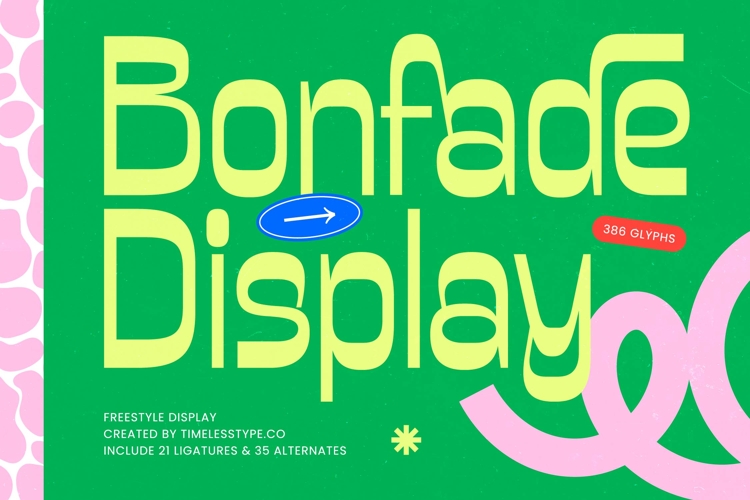
Bonfade Display - Freestyle Sans Display
Unleash unparalleled creativity with Bonfade Display - Freestyle Sans Display, a truly distinctive typeface designed to make an unforgettable statement. This freestyle sans display font captivates with its organic, flowing curves and bold presence, creating an aesthetic that is both modern and timeless. Perfect for projects demanding a fresh, expressive voice, Bonfade Display - Freestyle Sans Display instantly elevates any design, ensuring your message stands out with undeniable impact.
Dive into a world of typographic versatility with the extensive character set of Bonfade Display - Freestyle Sans Display. Featuring 386 glyphs, including 21 ligatures and 35 alternates, this font empowers designers with unlimited customization. Craft unique headlines and branding elements that resonate with sophisticated charm, allowing for dynamic visual narratives that are anything but ordinary.
With its extensive multilingual support, Bonfade Display - Freestyle Sans Display adapts seamlessly across global markets, making it incredibly versatile for international projects. This robust feature ensures your brand maintains its distinctive appeal and readability, regardless of language or region. Experience global readiness and professional consistency, solidifying Bonfade Display - Freestyle Sans Display as a go-to choice for diverse creative endeavors.
Bonfade Display - Freestyle Sans Display is the ultimate selection for designs that crave attention and a bold personality. It is perfectly suited for luxury branding, cutting-edge packaging, dynamic editorial layouts, engaging event promotions, and high-impact advertising. Choose this font to infuse your projects with an innovative spirit and a memorable visual identity that speaks volumes about your brand.